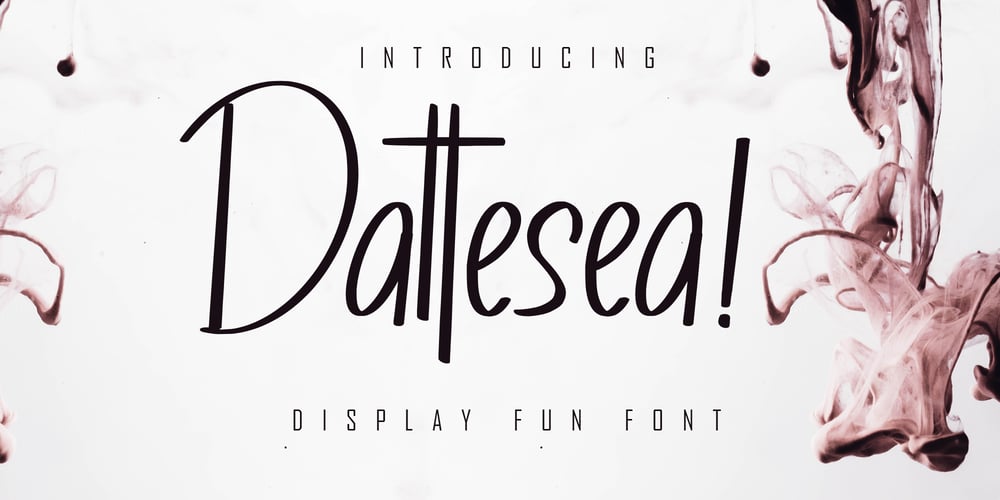
Dattesea Font Family was designed by Irfan Mahmudin and published by Skiiller Studio. Dattesea contains 1 styles and family package options. Dattesea is a clean and pleasant, funny, unique, funny handwritten thick sans-serif with lots of personality.